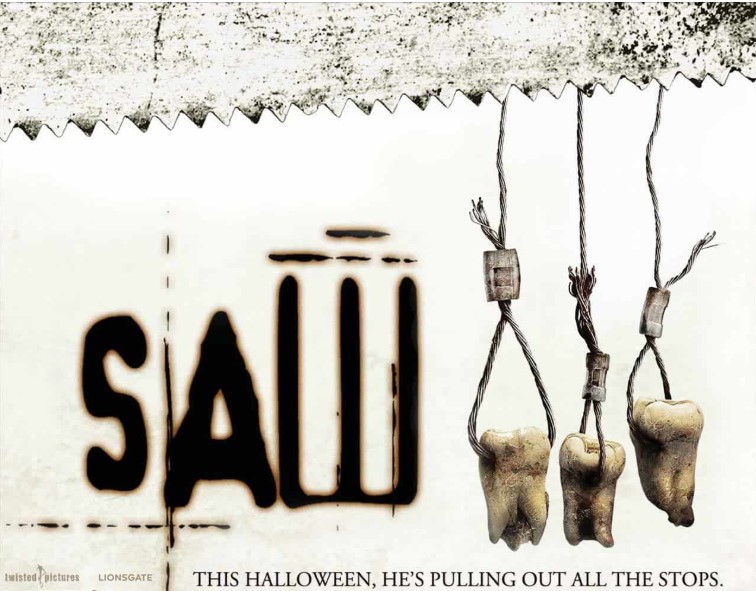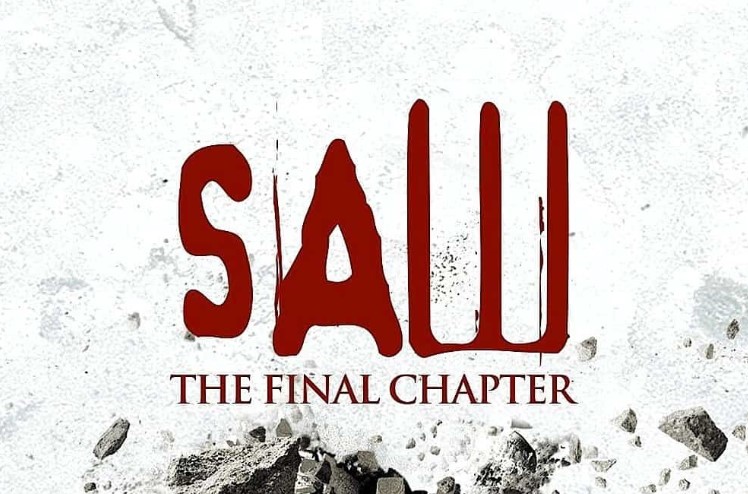
Saw Movie Font
Saw Movie Font is the most used typeface is Horror movies. This typeface is also famous for its text generation function and also called as The Nun or Fog font. Those are hand-drawn fonts that during reality deliver off a real non-public touch in your duties. It’s also one of the maximum used fonts in the google fonts.
A neoteric font is right for several responsibilities that encompass product packaging, label, e-book/cover have a observe, signal, particular sports activities, and numbers more. Download The majority of the designers had been the usage of it for his or her very personal systems. And some others are taking it as a concept for making new typefaces. It is just like the better together script.